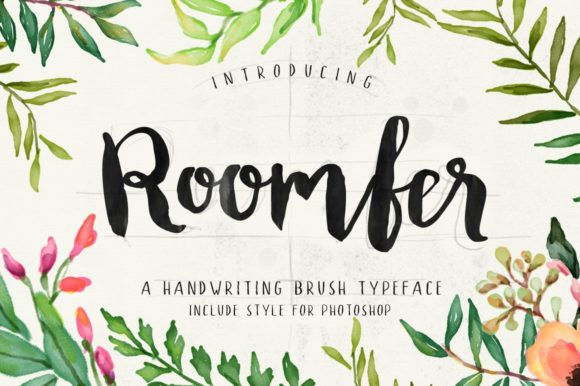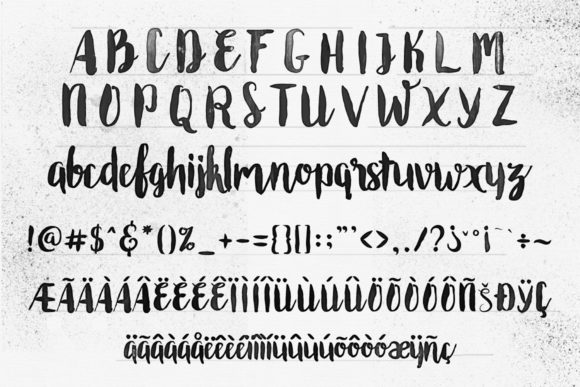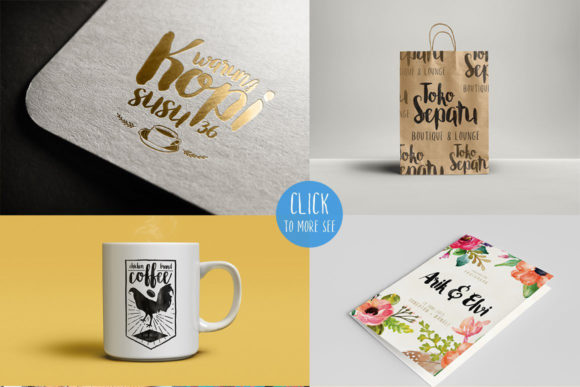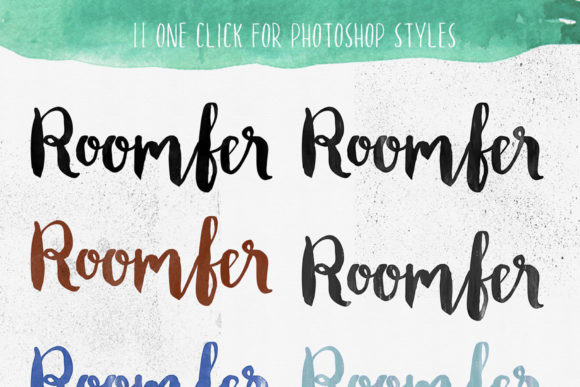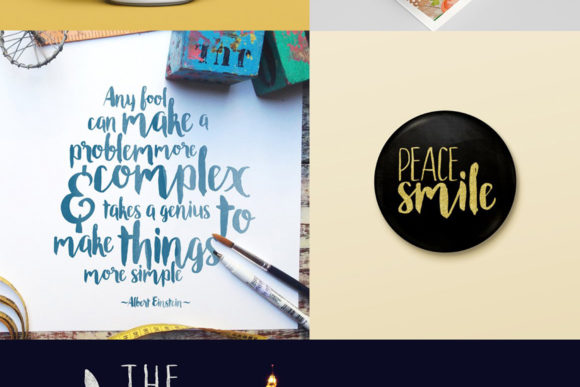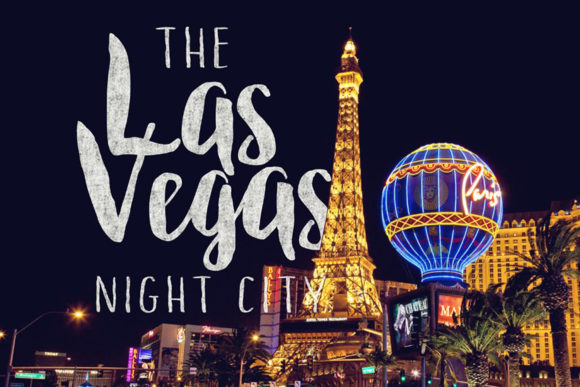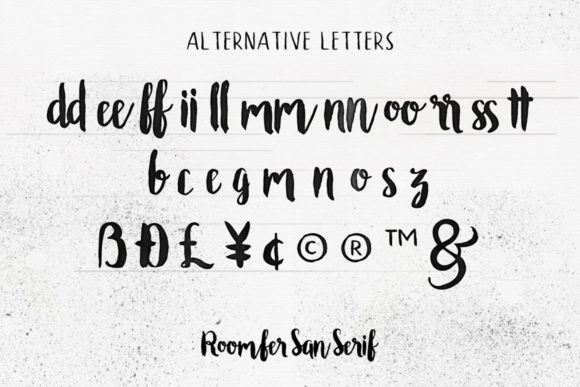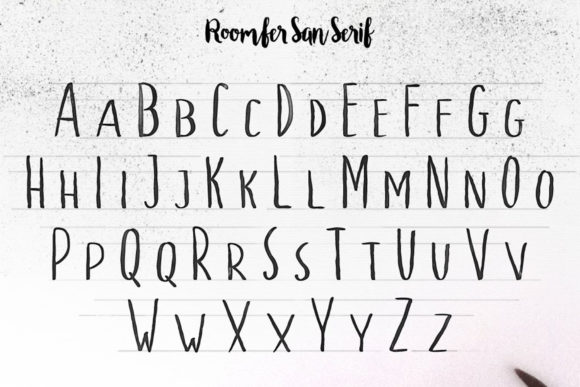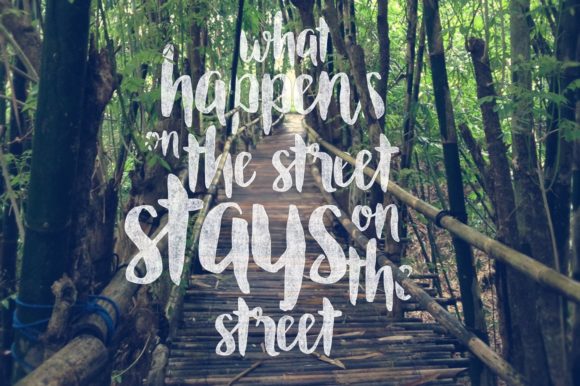
HomeScript FontsRoomfer Font Script Fonts Roomfer Font FacebookXPinterestWhatsApp Roomfer Font Poster 2 Roomfer Font Poster 3 Roomfer Font Poster 4 Roomfer Font Poster 5 Roomfer Font Poster 6 Roomfer Font Poster 7 Roomfer Font Poster 8 Roomfer Font Poster 9 About Roomfer Font Roomfer is a rough and organic script that will add a natural feel to any design! DOWNLOAD NOW People also explored Gabriella Font Moanq Font Bhenay Signature Font Lettering Box Font Rubellas Font Treefrog Competence Font Caselina Font Triyastie Font 311 0 TagsRoomfer Font Previous articleAsfrogas FontNext articleFont Holo Font LEAVE A REPLY Cancel reply Comment: Please enter your comment! Name:* Please enter your name here Email:* You have entered an incorrect email address! Please enter your email address here Website: Save my name, email, and website in this browser for the next time I comment. Personal Use Free Boldace Personal Use Free Read more about this font New Normal Personal Use Free Read more about this font Oaklevin Personal Use Free Read more about this font Setta Personal Use Free Read more about this font BLOG Best Fonts for YouTube Videos: Make Your Thumbnails Stand Out Best Fonts for YouTube Videos: Make Your Thumbnails Stand Out Choosing the right font can make a massive difference in how your YouTube videos perform.... 5 Fonts That Will Dominate Design Trends in 2026 Top 10 Handwritten Fonts That Elevate Your Designs Exploring Font Trends